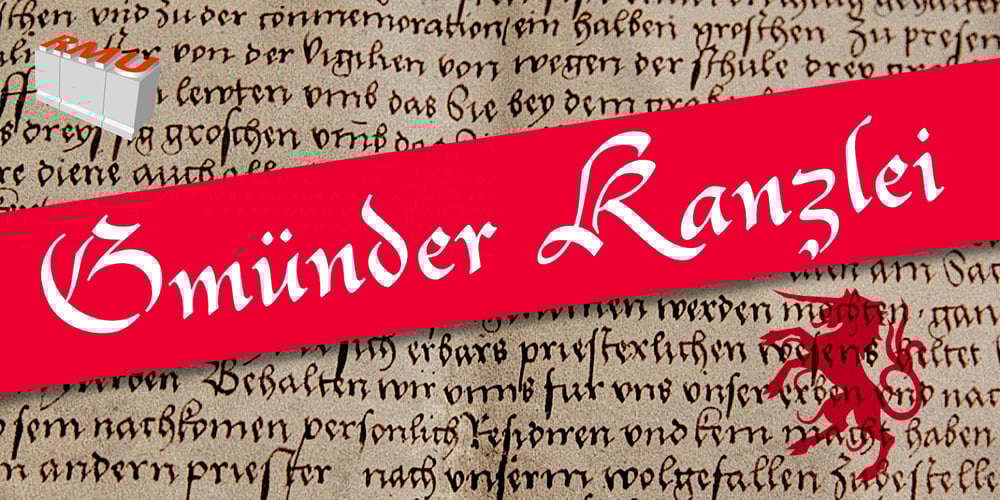
Gmuender Kanzlei Font Family was designed by Ralph M. Unger and published by RMU. Gmuender Kanzlei contains 1 styles and family package options. Inspired by some handwritten letter forms originally made by Hermann Zapf for his 1949 book “Pen and Graver”, the drawings and designs finally became an entire font. It is an ideal companion to create diplomas, certificates and any other vintage projects. Take advantage of the long s which can be reached when you change the round s by the historical OpenType feature or when you simply type the integral sign [ ∫]. This font contains also swash forms of d, g, and v.